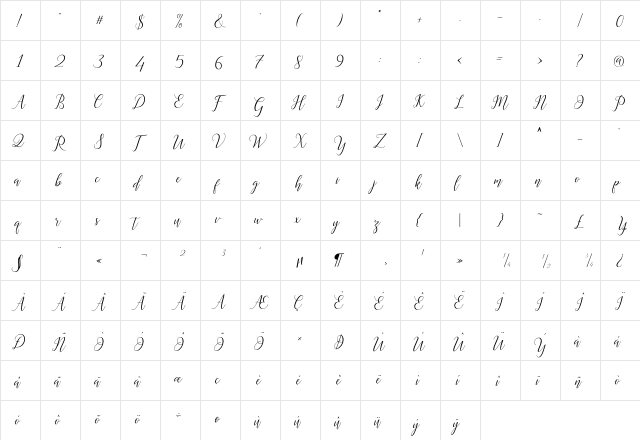
Astereiska Regular
| Foundry | Amarlettering_kamaruddin |
| Designer | Amarlettering_kamaruddin |
Design Context for Astereiska Typeface
Astereiska is a composed and adaptable typeface that performs quietly and consistently across a wide range of design contexts.